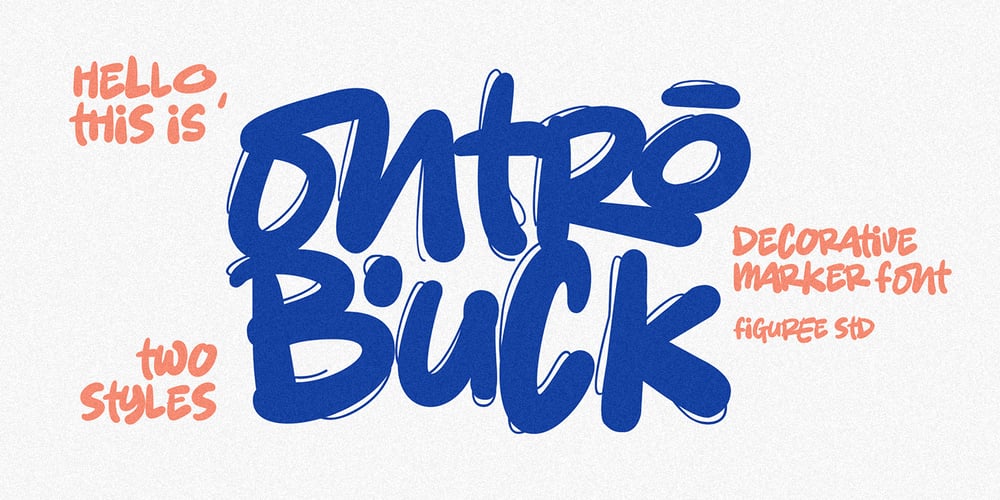
Ontro Buck Font Family was designed by Icep Anwar Fadhil and published by Figuree Studio. Ontro Buck contains 2 styles and family package options. Introducing Ontro Buck โ the ultimate Decorative Marker Font that infuses your creative projects with bold, expressive strokes and a unique artistic flair. Designed to stand out, Ontro Buck is perfect for those who seek to make a strong visual impact with their typography.๐จ Expressive Artistry: Ontro Buck captures the essence of hand-drawn marker strokes, delivering a bold and dynamic aesthetic. Each letter is meticulously crafted to convey a sense of spontaneity and creativity, making it ideal for designs that demand attention.๐๏ธ Bold and Decorative: This font combines thick, confident lines with intricate decorative details, creating a visually striking effect. Perfect for posters, flyers, branding, and more, Ontro Buck ensures your message is delivered with a powerful and artistic touch.๐ฅ Impactful Statements: Ontro Buck is designed to dominate. Its bold and decorative letterforms ensure your text captures attention and leaves a lasting impression. Use it for headlines, titles, and other prominent elements to create bold, eye-catching visuals.๐๏ธ Versatile Application: Whether you’re designing for print or digital media, Ontro Buck adapts seamlessly to various applications. Its distinctive style is perfect for a wide range of creative projects, from edgy music covers and streetwear branding to vibrant social media graphics and eye-catching event posters.๐จ Unique Character: The handcrafted look of Ontro Buck adds a unique character to your designs, making them stand out from the crowd. Each letter exudes a sense of individuality and artistic expression, perfect for projects that require a bold and personalized touch.Elevate your designs with Ontro Buck โ the Decorative Marker Font that combines bold strokes with intricate details. Perfect for making a strong visual impact, Ontro Buck is your go-to font for adding an artistic and powerful touch to any project.